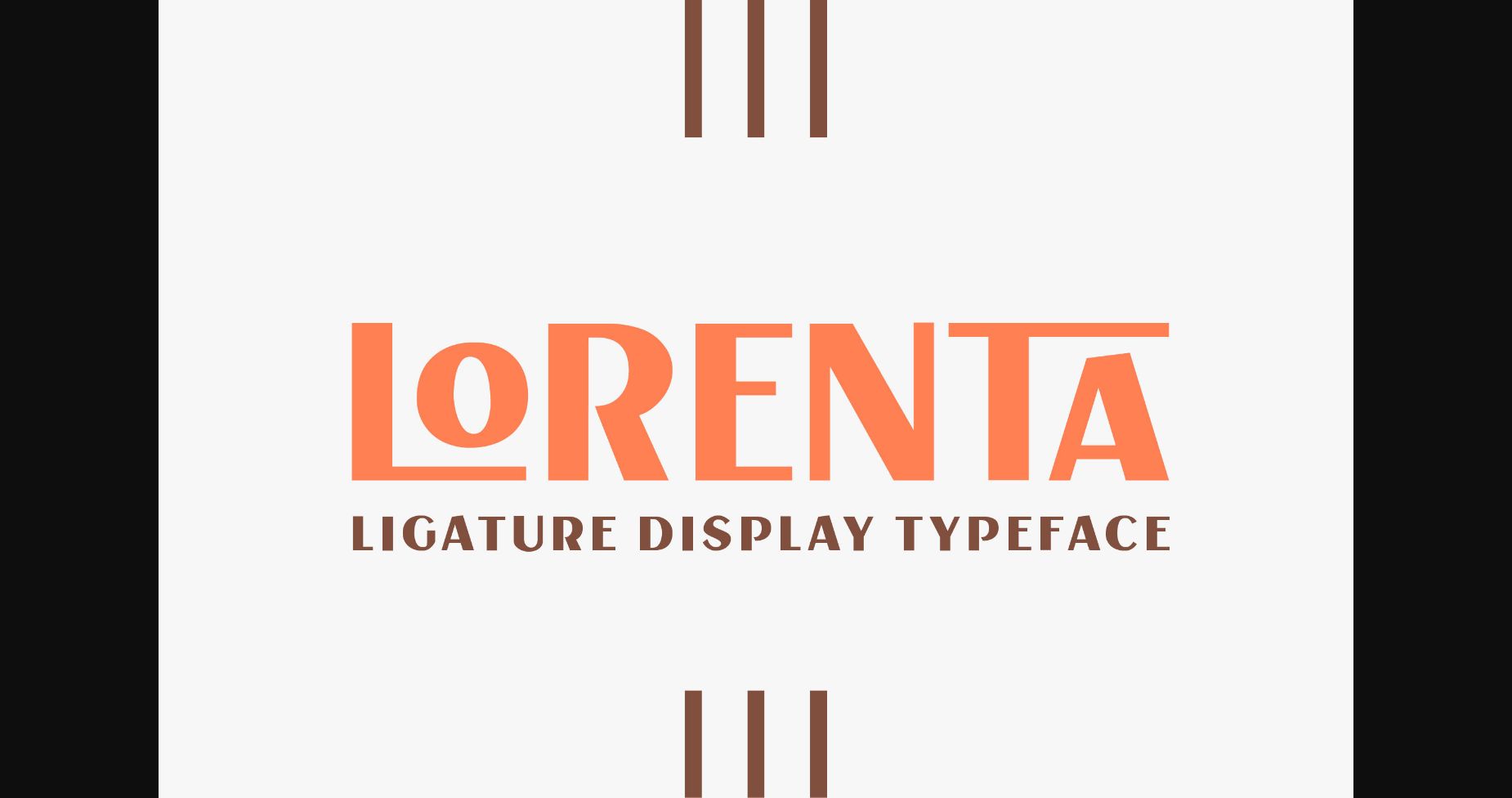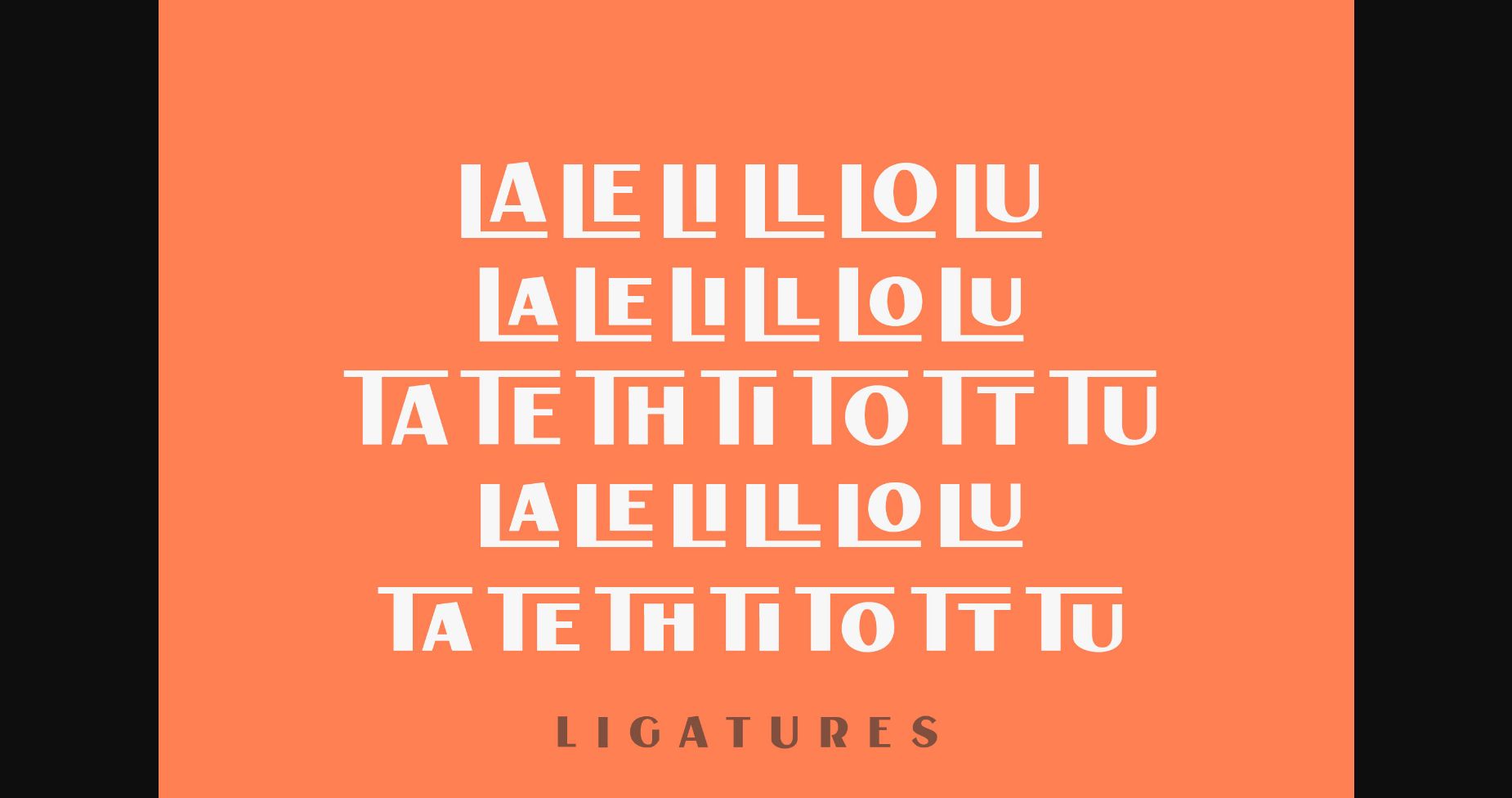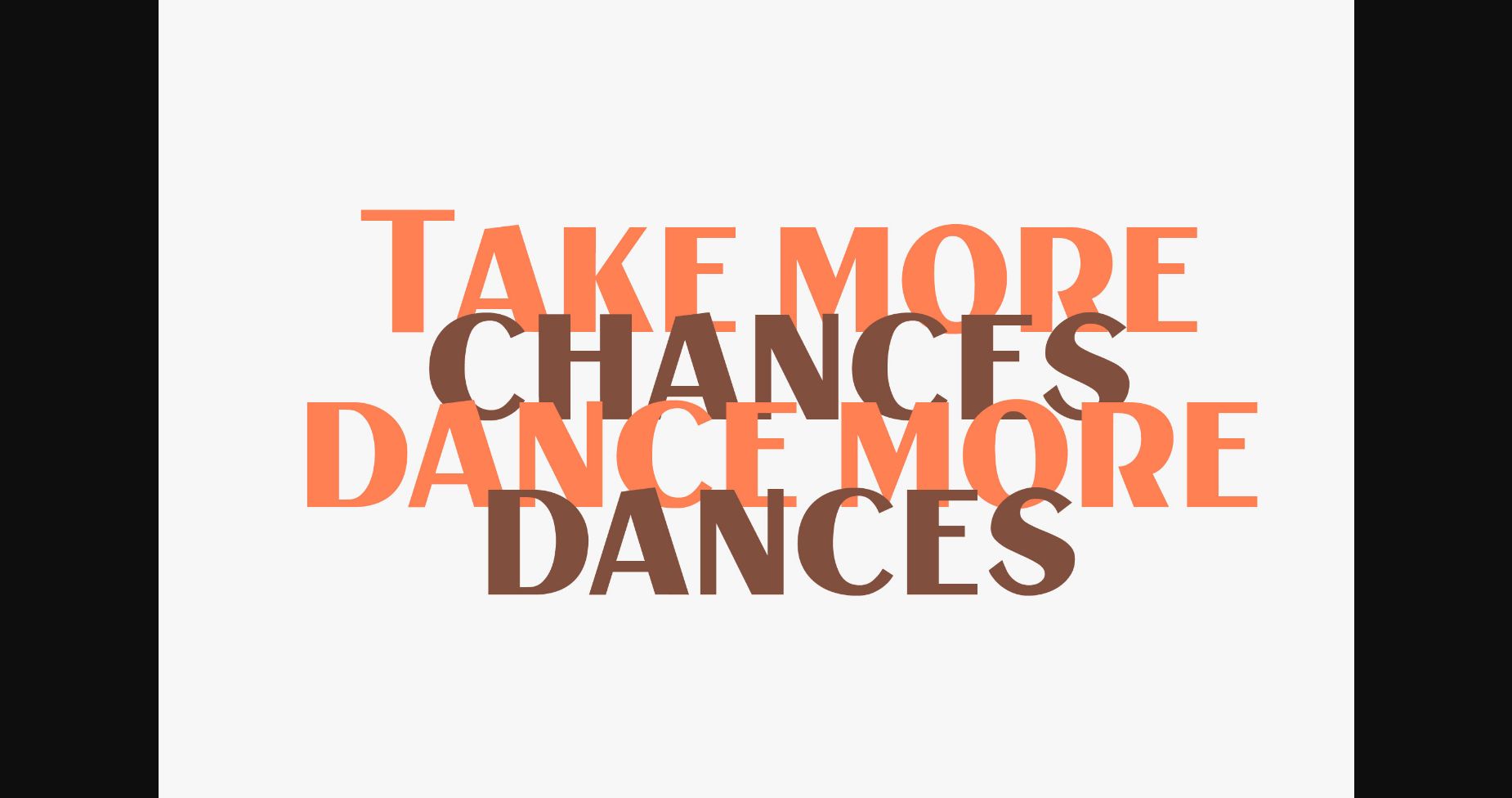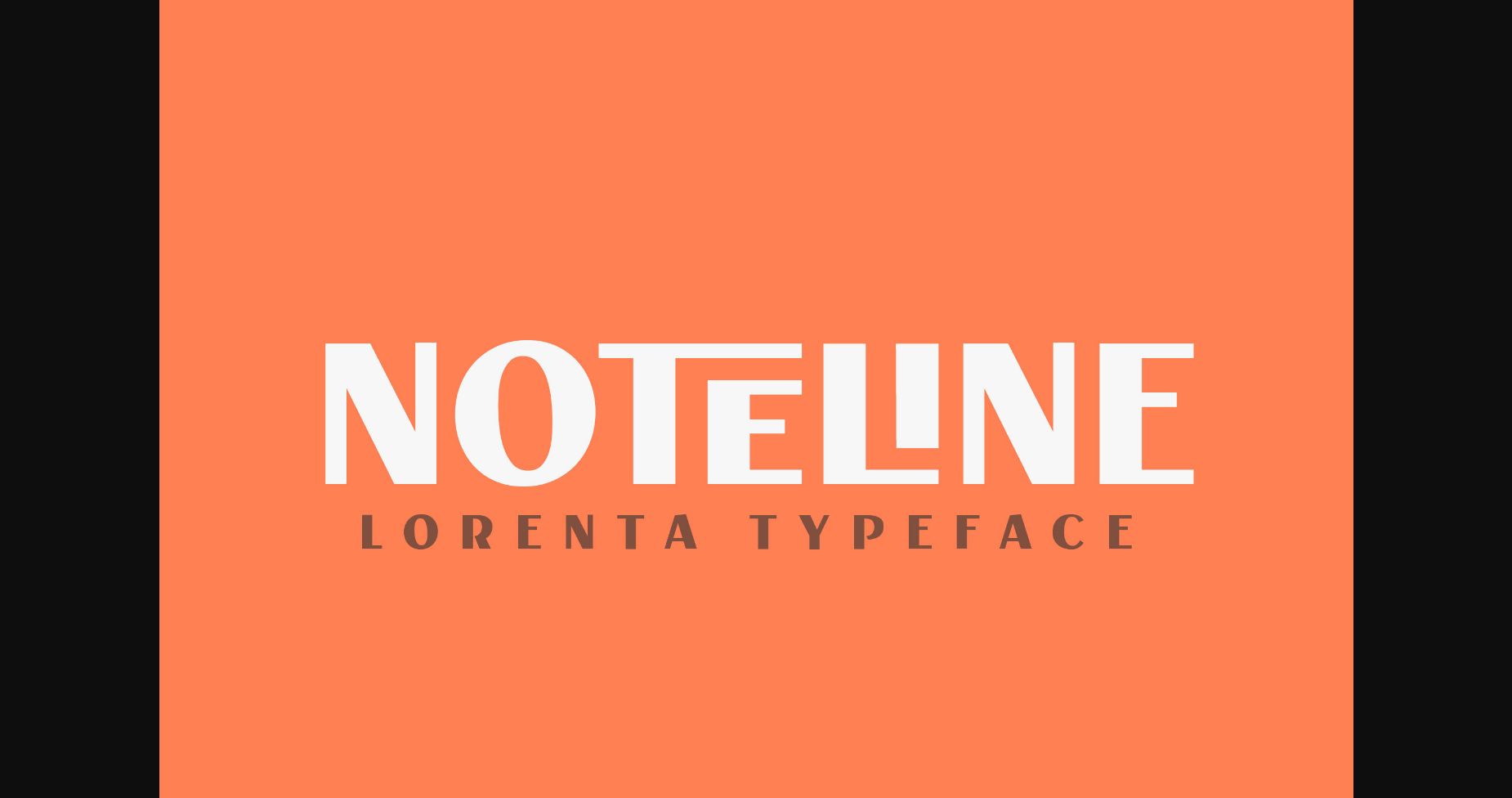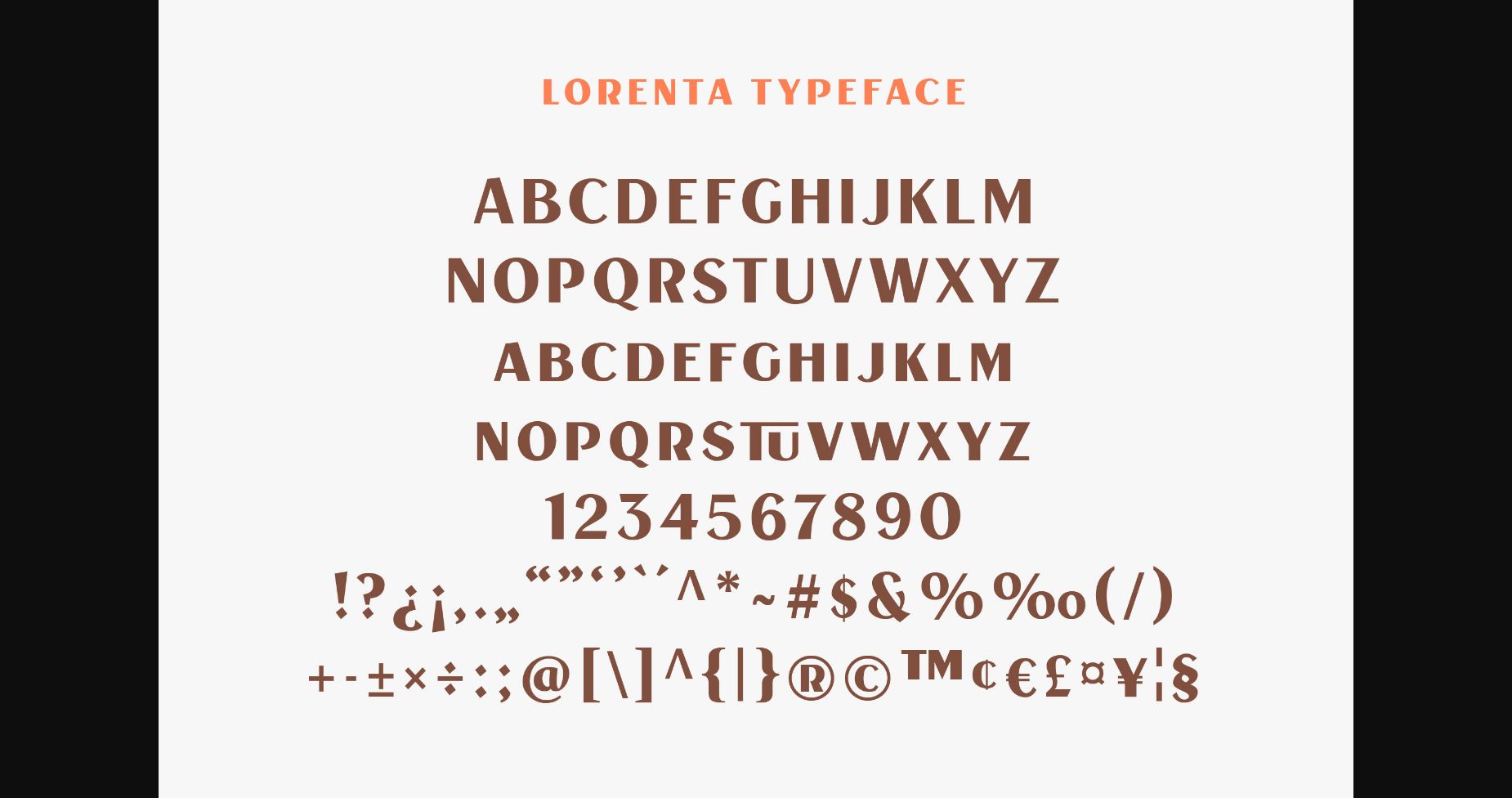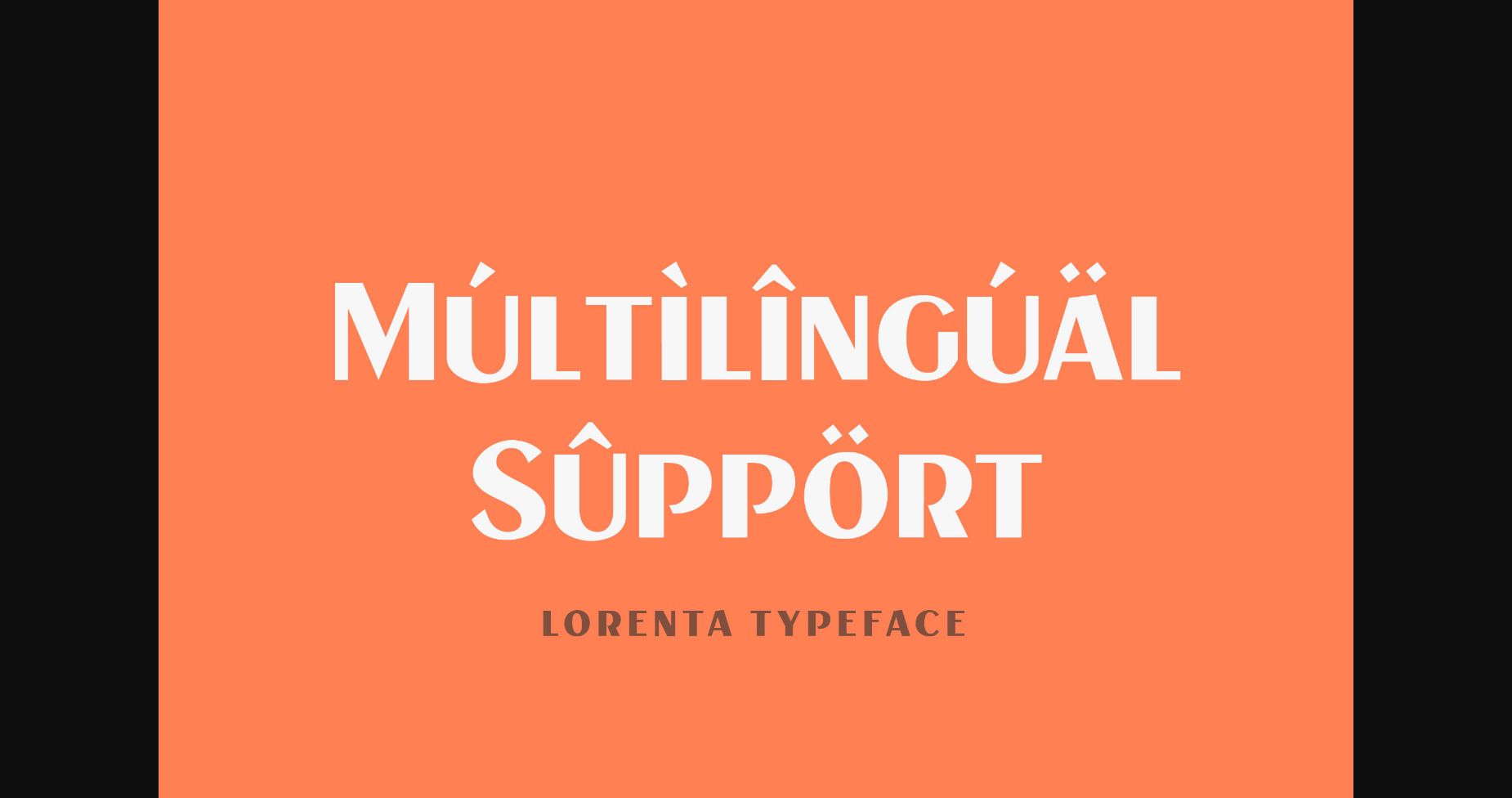
About Lorenta Font
This attractive and exquisite sans-serif font is a striking and versatile design. Lorenta’s clean, minimalist lines and subtle, elegant curves create a sense of modern sophistication that is perfect for adding a touch of professionalism to your branding or typography.